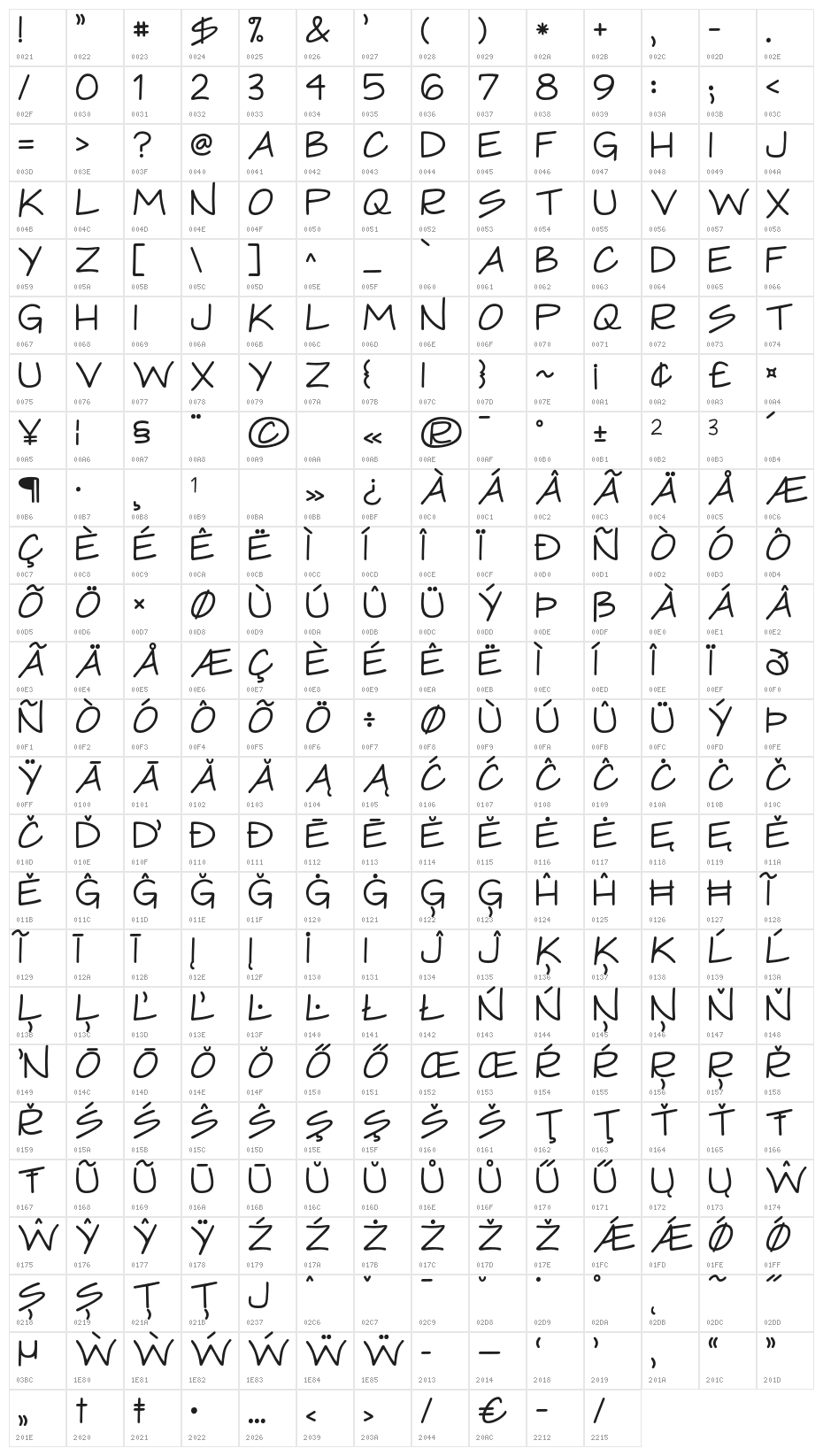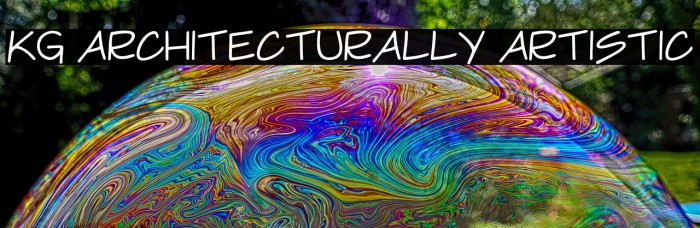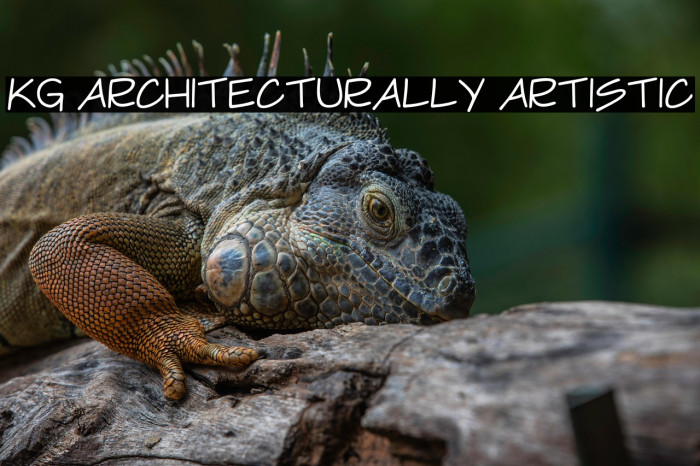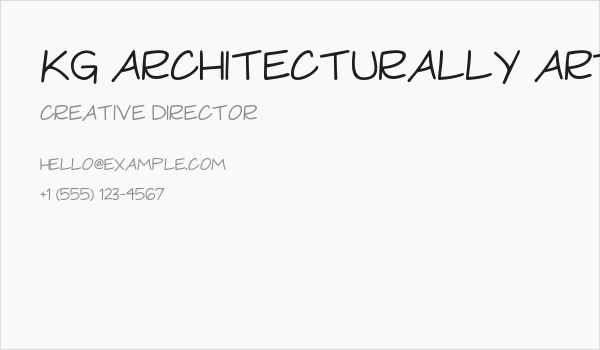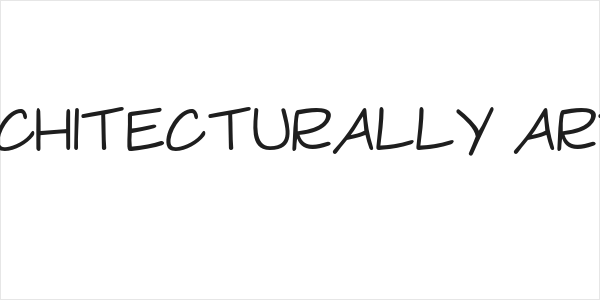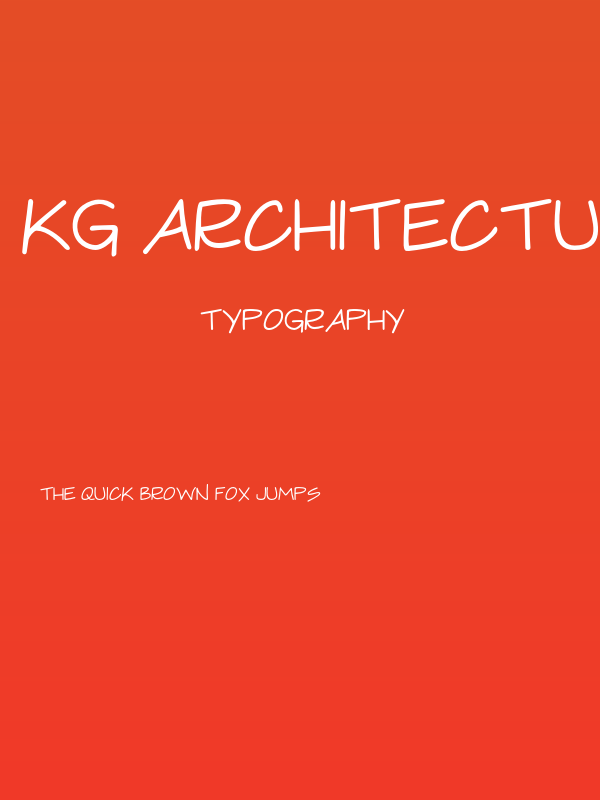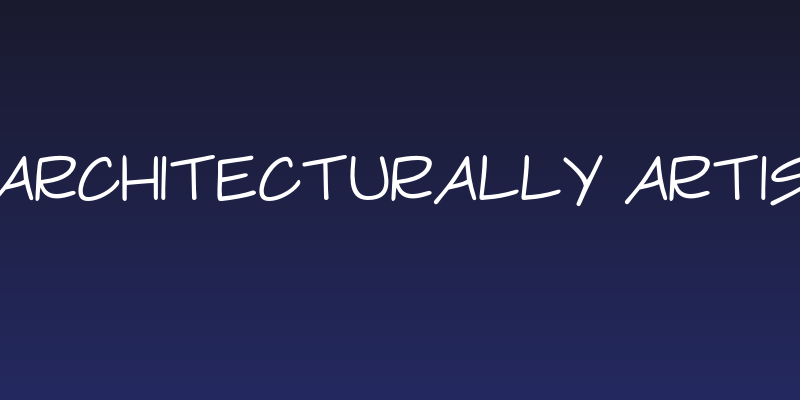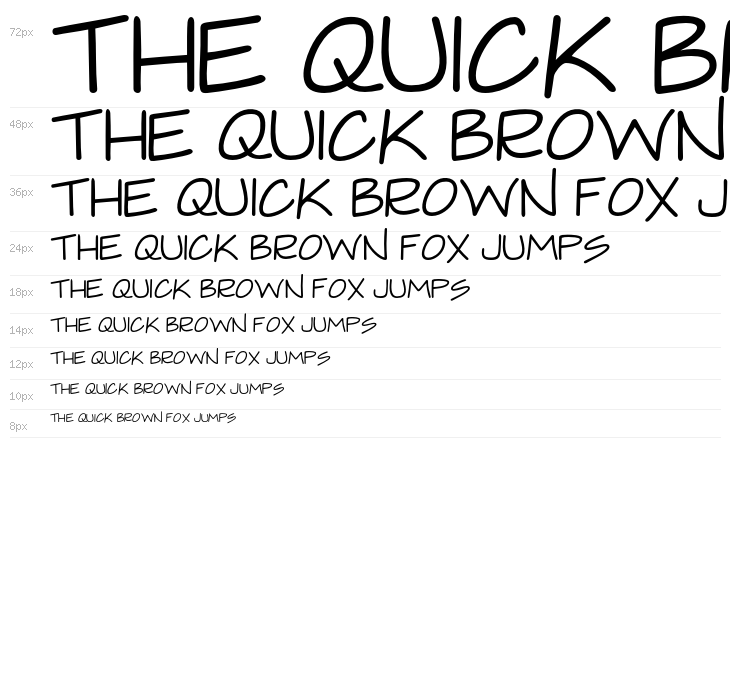
KG Architecturally Artistic Font
KG Architecturally Artistic Description
A playful, handwritten font with a casual and artistic style, featuring slightly irregular strokes and a friendly appearance.
| Overall Style | Casual, Artistic |
| Proposed Projects | Greeting cards, children's books, casual branding. |